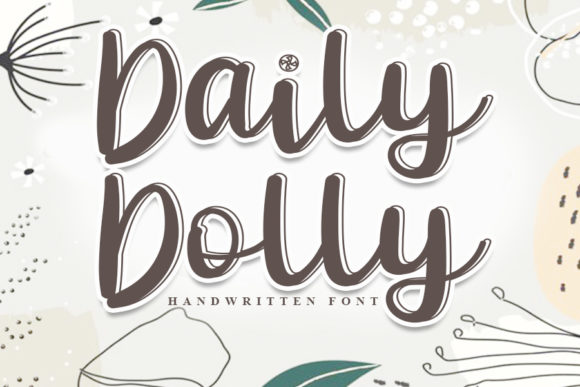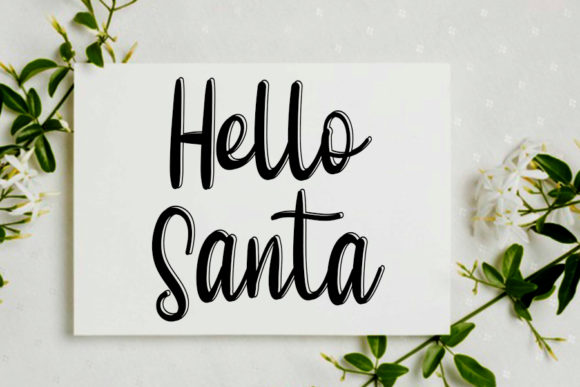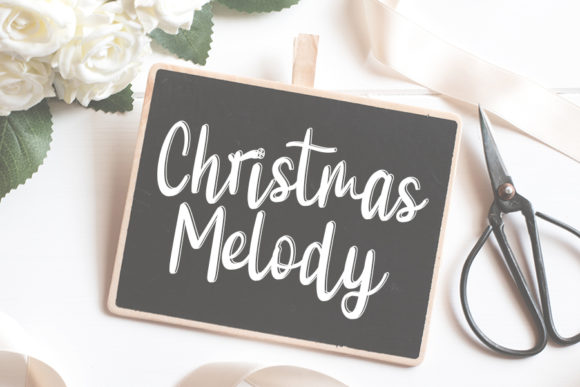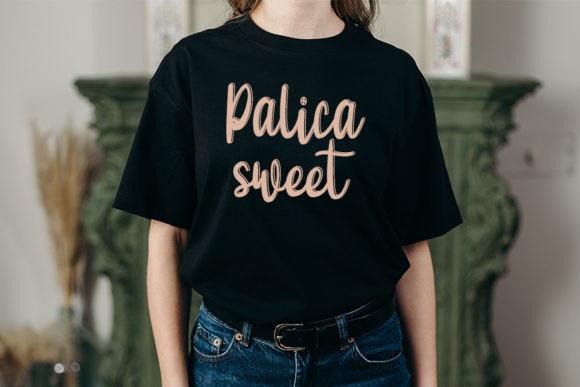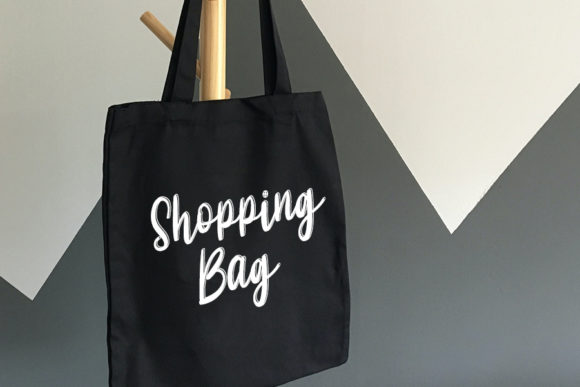
About Daily Dolly Font
Daily Dolly is a delicate and elegant handwritten font. Its distinct and well rounded letters make this font a masterpiece. Fall in love with its incredibly versatile style and use it to create spectacular designs!